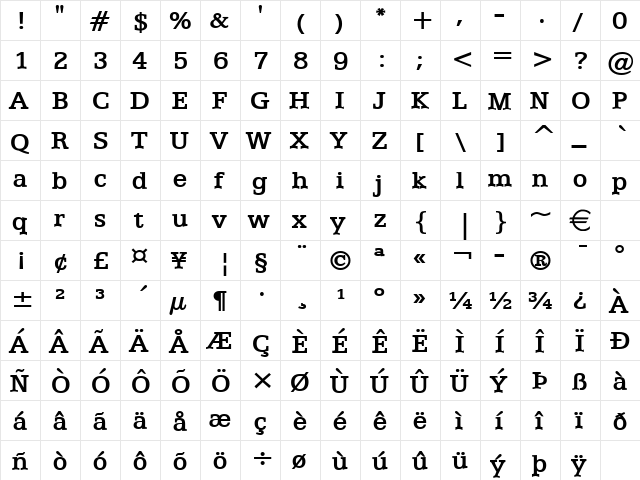
EggoWide Bold Font Preview
EggoWide Bold
Design Context for EggoWide Typeface
EggoWide is a composed and adaptable typeface that performs quietly and consistently across a wide range of design contexts. The heavy weight commands attention and anchors typographic hierarchies.